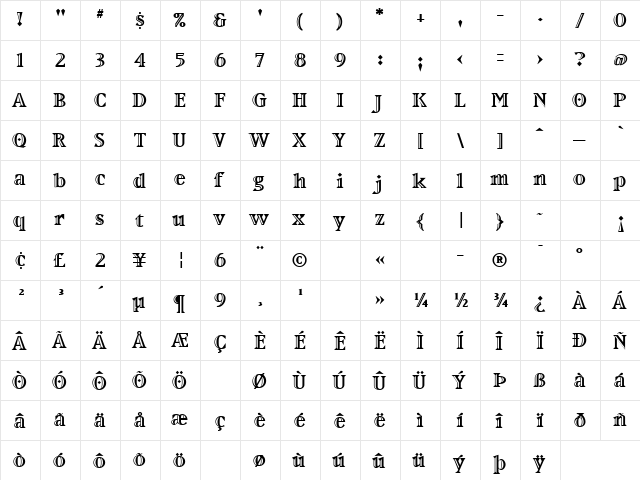
MatrixInlineExtraBoldLining Bold
Design Context for MatrixInlineExtraBoldLining Typeface
MatrixInlineExtraBoldLining is built around its visual character rather than neutral utility — its distinctive forms are designed to make an impression at display sizes. The heavy weight commands attention and anchors typographic hierarchies.
Font Pairing: Pair with a clean neutral sans-serif for body copy to let MatrixInlineExtraBoldLining's character lead without overwhelming the composition.
Pro Tip: Use MatrixInlineExtraBoldLining exclusively at display sizes — it was designed to be seen, not read at length. Let a neutral companion handle body copy.